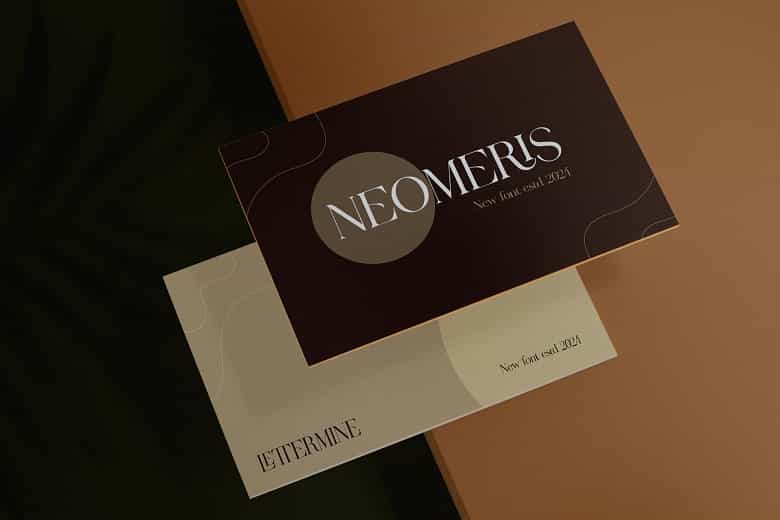
Neomuris is a beautiful and sophisticated modern serif font suitable for any of your design needs. Intended to take your designs to the next level with a tone of class. It is great for magazines, books, weddings, parties, and any other special events.